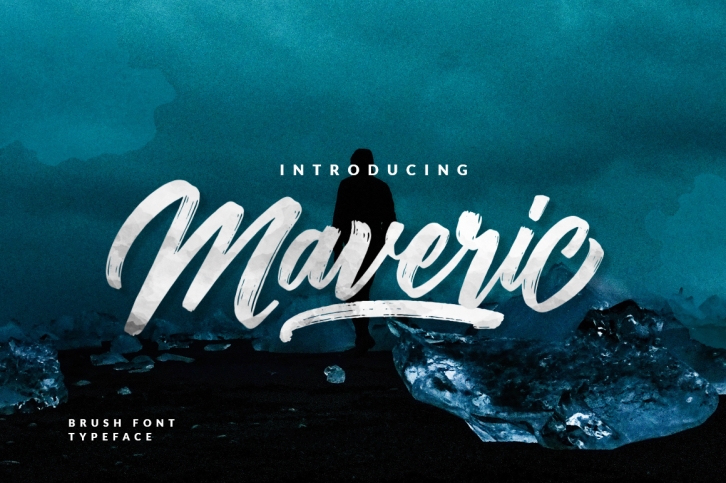
Maveric - Handmade Brush FONT Download
Maveric - Handmade Brush Font Download
Maveric is a great font that was designed by Aulia Rahman. Imagine the amount of combinations you can create using this font! The archive is 9.49 MB and it was released on June 3, 2018. Maveric looks beautiful on wedding invitations, greeting cards, logos, posters, labels, t-shirt designs, logos, business cards and is perfect for use in ink or watercolor works, fashion, magazines, packaging and food menus, children's books and more!